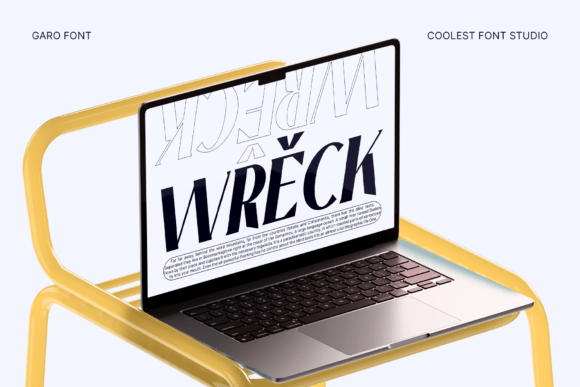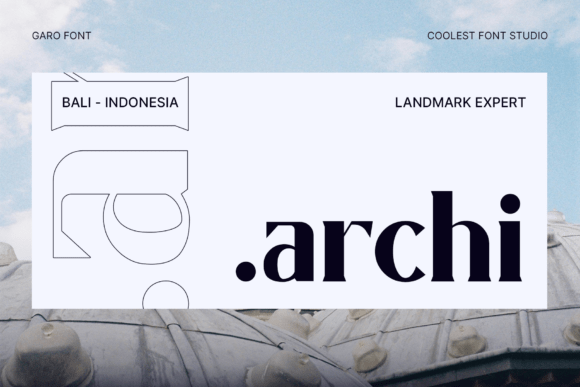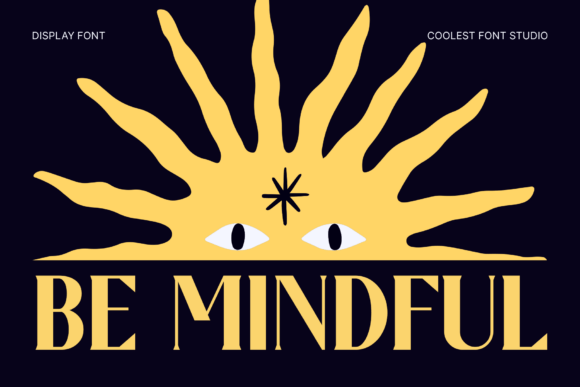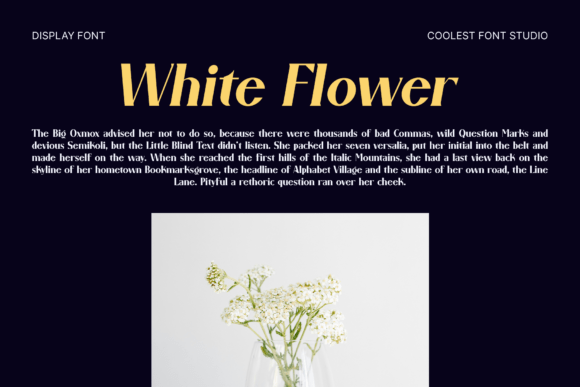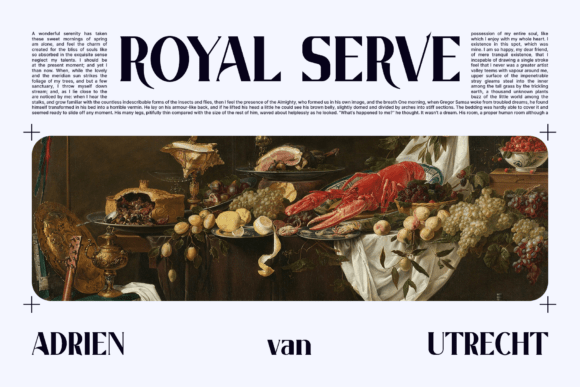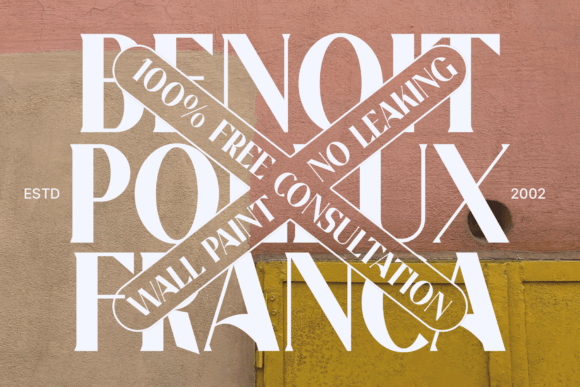
The Garo Font: Elevate Your Design with Timeless Sophistication
I’ll never forget the time I was working on a luxury branding project for a high-end fashion label. My client wanted a font that exuded elegance, sophistication, and a touch of modern charm. I scoured the internet, tried countless fonts, but nothing seemed to fit the bill. That was until I stumbled upon the Garo font. With its bold and elegant serif design, high contrast strokes, sharp serifs, and artistic ligatures, it was love at first sight! ✨
As a designer, I’m always on the lookout for fonts that can elevate my projects. Here’s what I love about Garo:
- ✅ Timeless sophistication: Garo’s classic serif design makes it perfect for luxury branding, editorial layouts, and high-end packaging.
- ✨ Modern charm: The font’s high contrast strokes and artistic ligatures give it a touch of modernity that’s hard to find in traditional serif fonts.
- 💼 Versatility: Garo works beautifully for a wide range of design projects, from fashion labels to wedding invitations.
- 👍 Attention to detail: Each letter has been crafted with precision, giving your text a professional yet unique personality.
Of course, no font is perfect. Here are a few quirks to keep in mind:
- 🤔 Limited use in body text: While Garo is stunning in headlines and titles, it may not be the best choice for lengthy body text due to its bold and elegant design.
The Story Behind Garo
Garo was designed with the goal of creating a font that blends timeless sophistication with modern charm. The designer, inspired by classic serif fonts and modern typography trends, crafted each letter with attention to detail and a focus on elegance. The result is a font that’s both refined and versatile, perfect for a wide range of design projects.
| What type of projects is Garo best suited for? | Garo is perfect for luxury branding, editorial layouts, high-end packaging, fashion labels, wedding invitations, and more. |
| Can I use Garo for body text? | While Garo is stunning in headlines and titles, it may not be the best choice for lengthy body text due to its bold and elegant design. |
| Does Garo support OpenType features? | Yes, Garo supports OpenType features like ligatures, glyphs, and stylistic alternates, which can be accessed in compatible design software. |
| Is Garo suitable for digital use? | Yes, Garo is designed to work beautifully in both print and digital formats, making it perfect for website headlines, social media graphics, and more. |